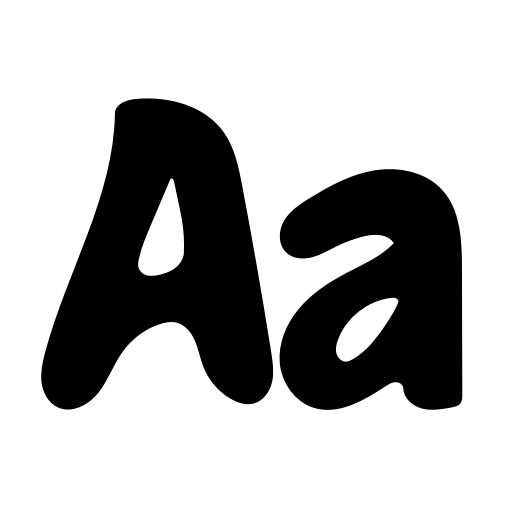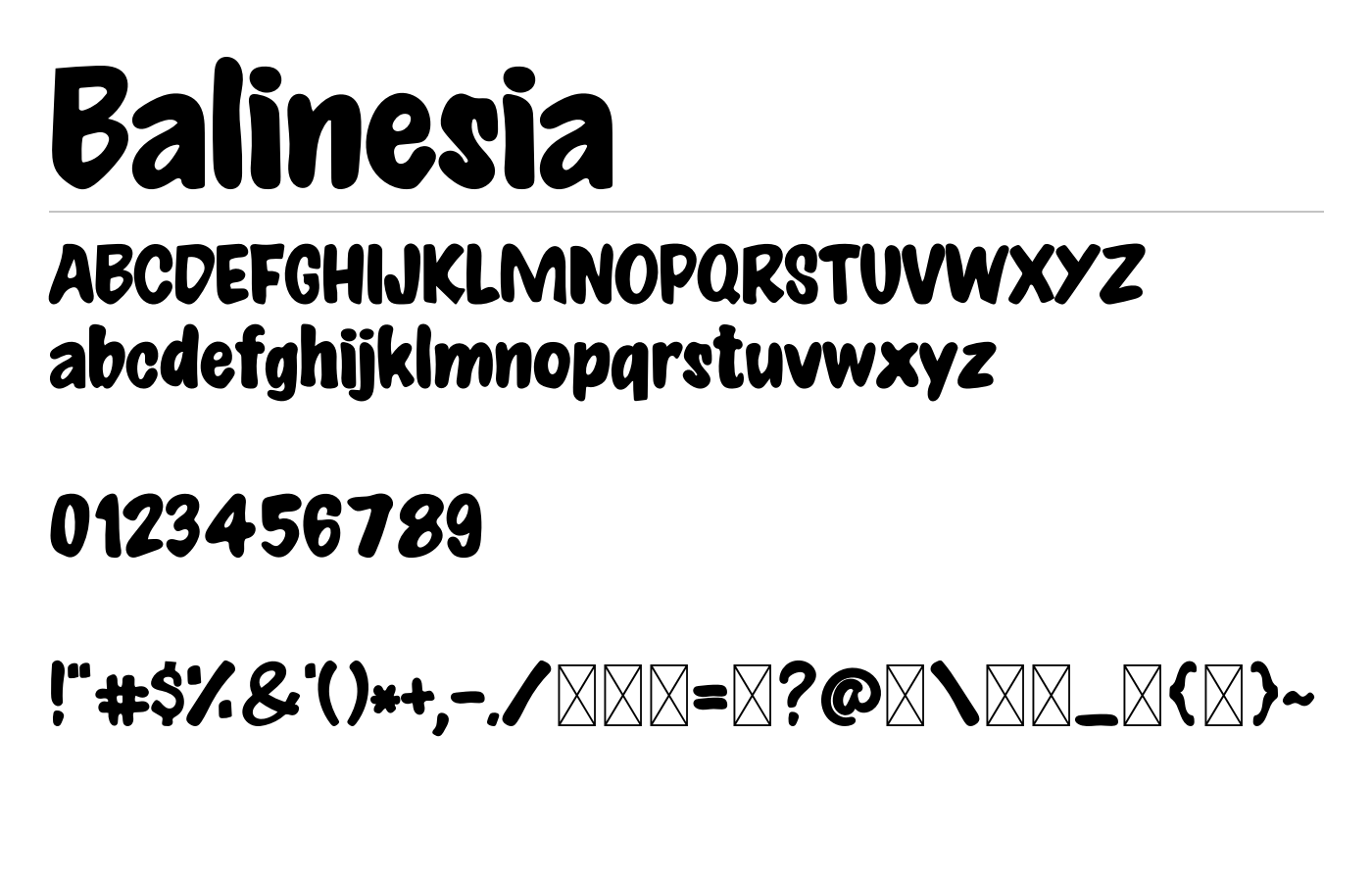
Balinesia is a playful, rounded sans serif font with a bold weight and friendly, handcrafted feel. Its thick strokes and slightly irregular shapes give it a warm, approachable personality, making it ideal for casual branding, children’s materials, and fun headlines. This font works especially well in contexts where a lively and inviting tone is desired, such as logos, posters, and informal web design.
Balinesia Font
About Balinesia Font
| Font family | Balinesia Font |
| Designer | Creative Zone |